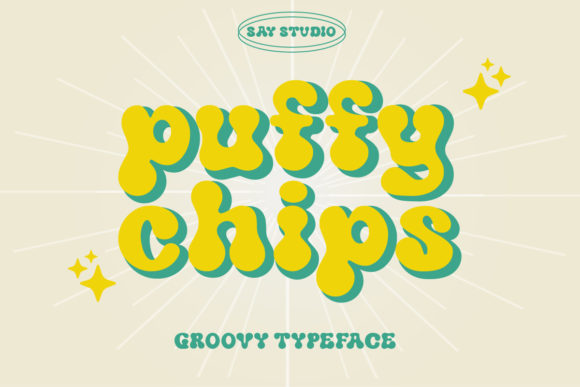
Dive into the whimsical world of Puffy Chips Font, a delightful display font family that exudes childlike charm and effortless readability. Whether you're a seasoned designer or just starting out, this font is your perfect companion for creating heartwarming designs that capture the essence of playfulness and joy.
With its rounded edges and bouncy strokes, Puffy Chips has an undeniable friendly and inviting vibe. It's a font designed to bring a smile to your face and inject a touch of whimsy into any project. Whether you're creating digital designs, crafting handmade cards, designing eye-catching presentations, or simply adding a personal touch to your online presence, Puffy Chips is the perfect font for adding a touch of magic to your creations.
One of the key features that makes Puffy Chips so versatile is its PUA encoding. This means that you can effortlessly access a wide range of amazing glyphs and ligatures, opening up a world of creative possibilities. Experiment with different combinations to add intricate details, create stunning logos, or simply enhance the overall visual appeal of your designs.
So, whether you're a seasoned designer looking to expand your font collection or a beginner just starting out, Puffy Chips Font is an absolute must-have. Its playful nature and endless creative possibilities make it the perfect choice for adding a touch of whimsy and charm to your next project.